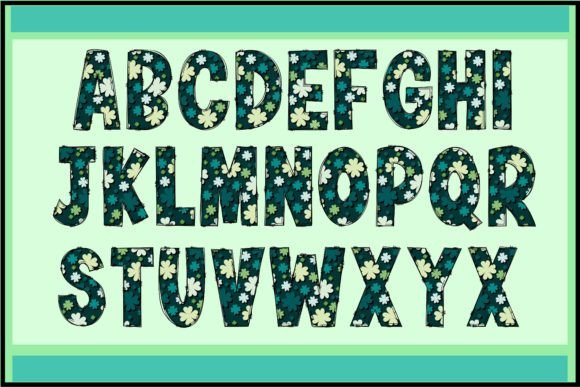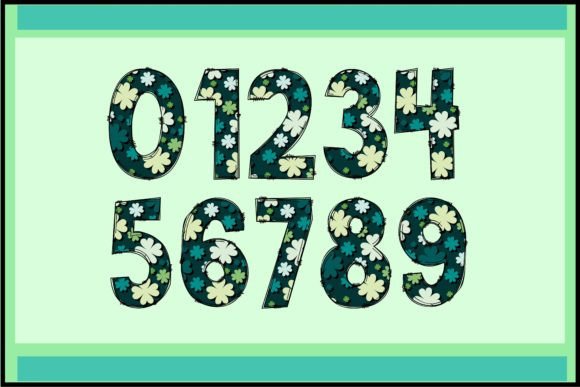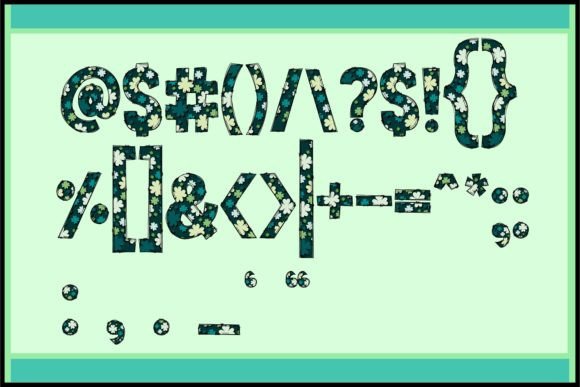
Introduction to Four Leaf Clover Font Font
Fonts play a crucial role in design, and the Four Leaf Clover Font font is a typeface that brings both character and versatility to any project. Whether you’re working on a branding project, a website, or a print design, the Four Leaf Clover Font font offers a unique style that can elevate your work.
Four Leaf Clover is a fun and playful color font perfect for your Saint Patrickβs Day designs.
Add it to your creative projects and make them outstanding .
Key Features of Four Leaf Clover Font Font
Why Choose Four Leaf Clover Font Font?
The Four Leaf Clover Font font is more than just a typeface β it’s a design tool that helps you communicate your message with style and clarity. Its unique character set and versatile design make it suitable for a wide range of applications, from elegant invitations to bold headlines.
With its carefully crafted letterforms and balanced proportions, the Four Leaf Clover Font font ensures readability and visual appeal across all mediums.
What makes Four Leaf Clover Font font special?
The Four Leaf Clover Font font stands out with its unique design, exceptional readability, and versatility across various design applications.